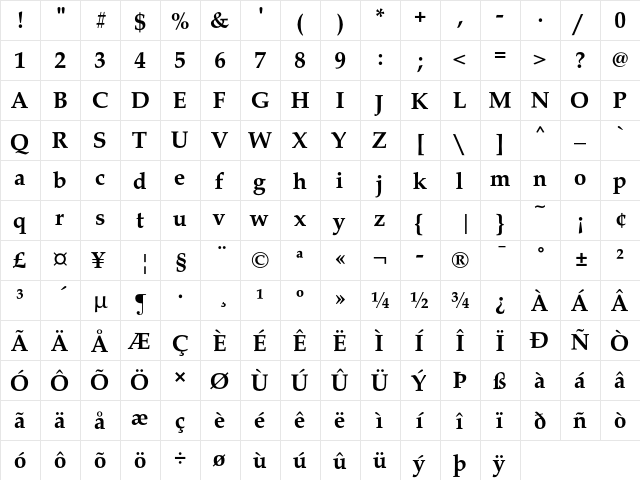
Palladio URW Bold
Design Context for Palladio URW Typeface
Palladio URW takes a measured approach to typography — its balanced proportions and neutral character make it a reliable workhorse for both digital and print work. Its bold stroke weight gives it real presence on the page.